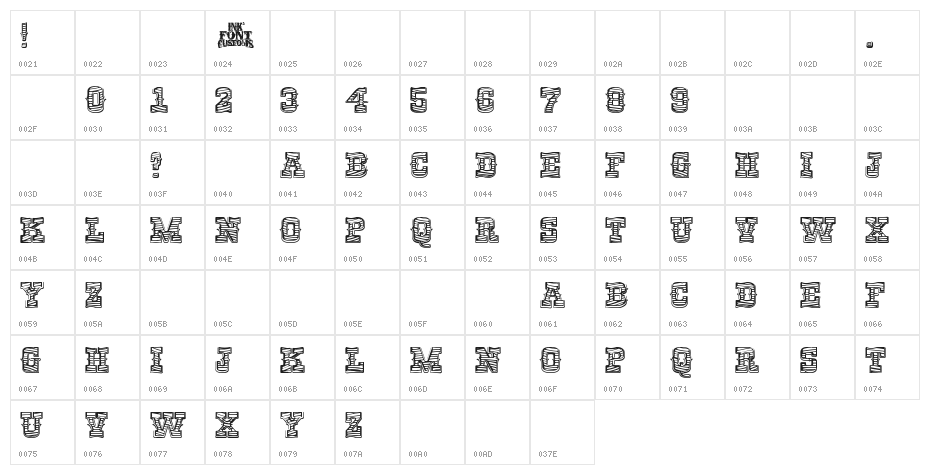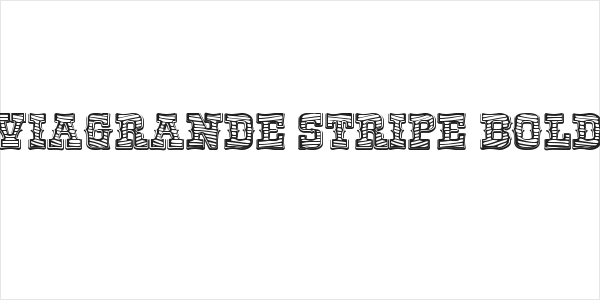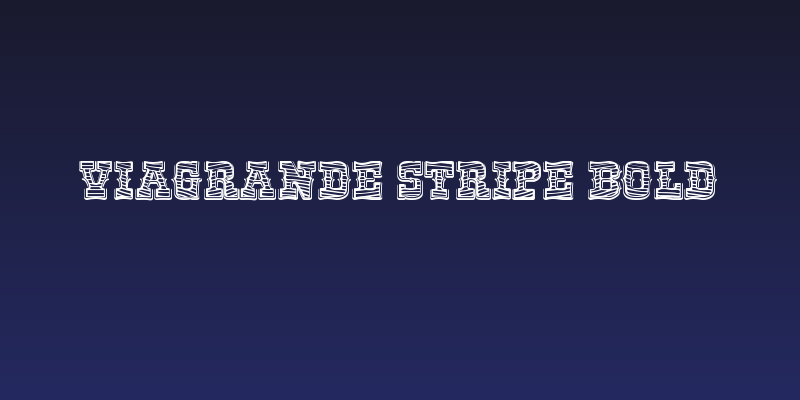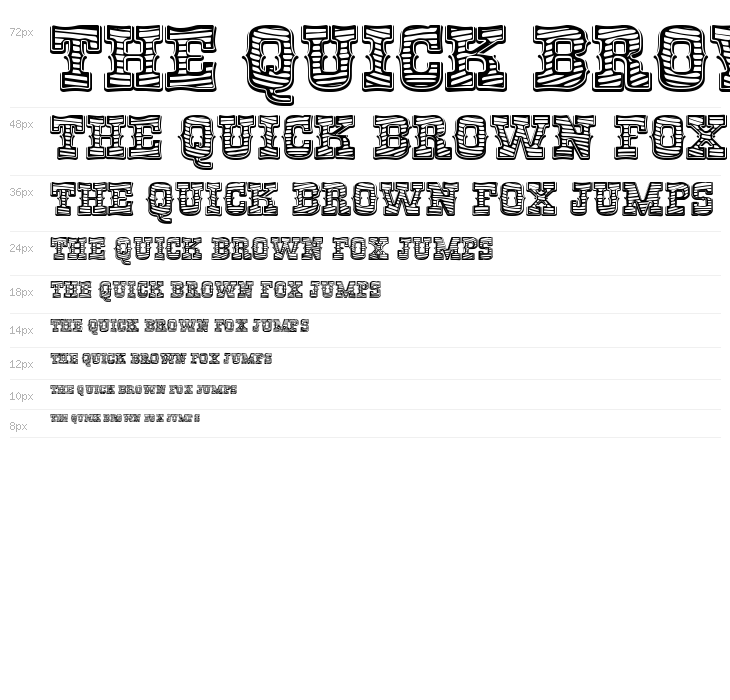
ViaGrande Stripe Bold Font
ViaGrande Stripe Bold Description
This font features a bold, decorative style with a unique striped pattern running through each character. The uppercase letters are designed with a strong presence, making them ideal for attention-grabbing headlines. The numbers and special characters maintain the same bold, striped aesthetic, ensuring consistency across all text elements. The font's intricate design is reminiscent of vintage circus or carnival posters, adding a playful yet sophisticated touch to any project.
Overall StyleVintage
Proposed ProjectsIdeal for posters, logos, and branding projects that require a vintage or playful aesthetic.